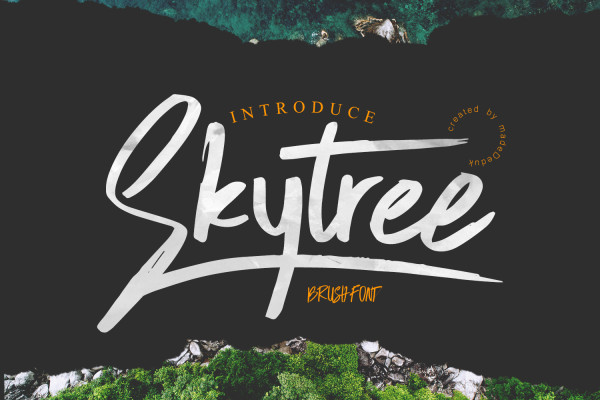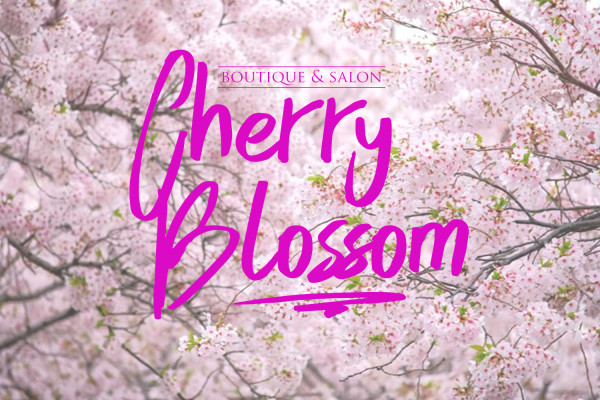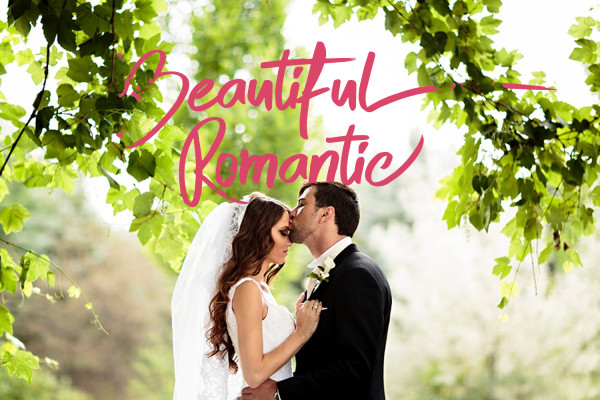
Skytree Script Font
Skytree Script Font is a sweet and flowing handwritten font, created with the help of a brush pen. Add it to your creative ideas and notice how it makes them come alive!